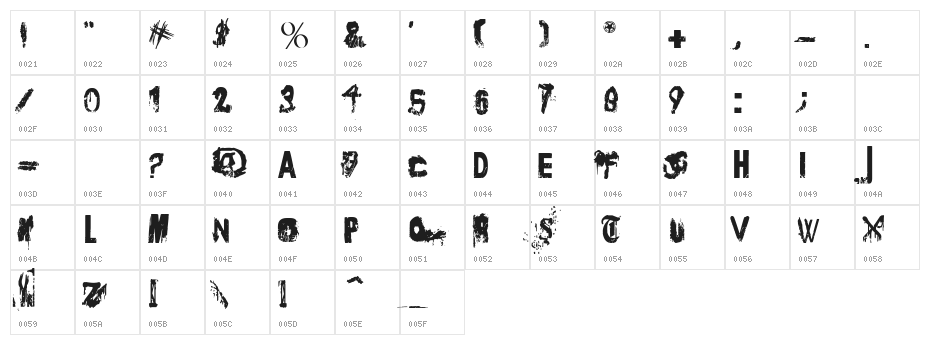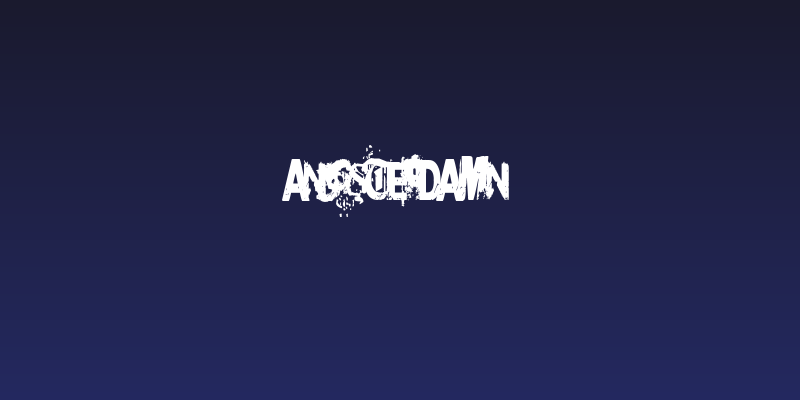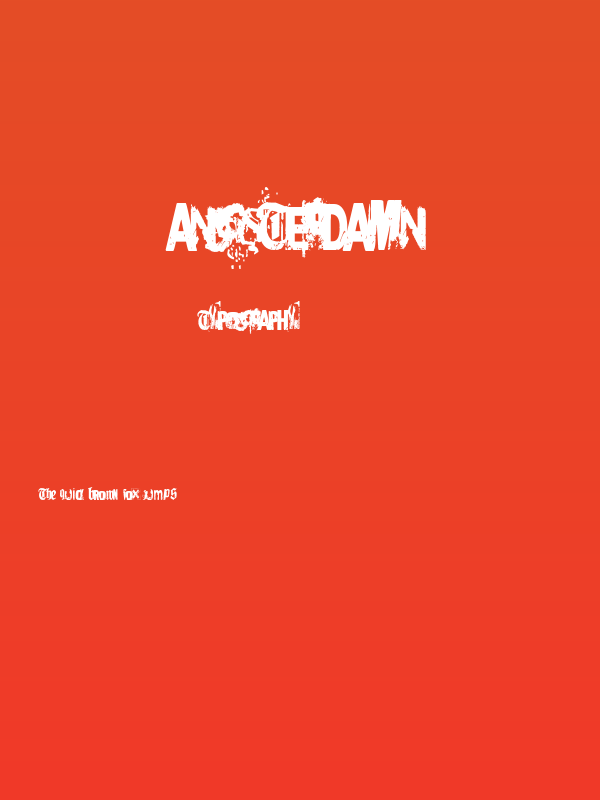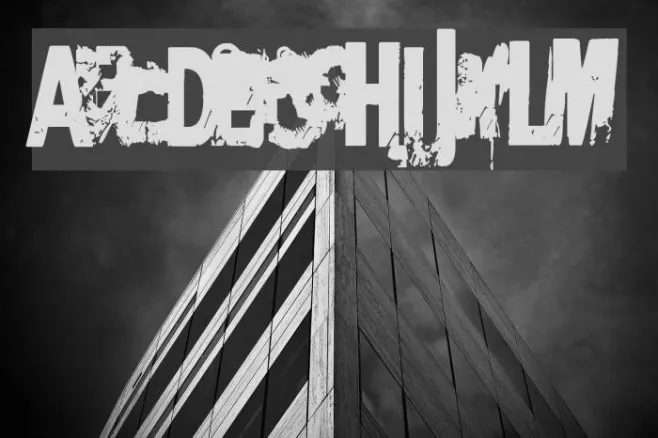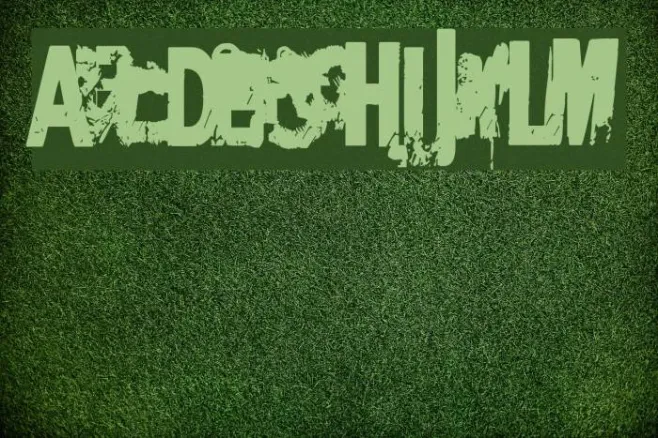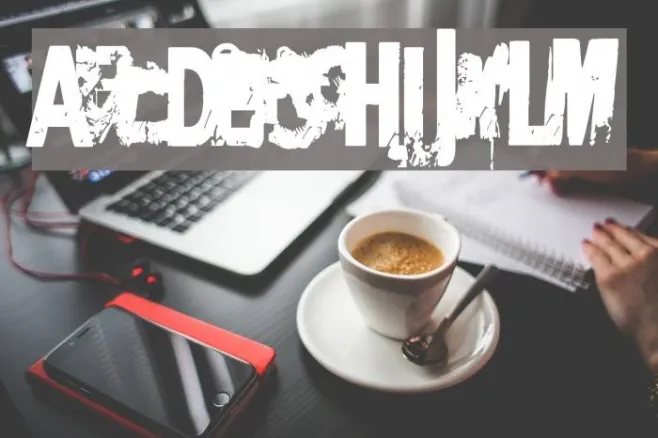
Angsterdamn Font
Angsterdamn Description
This font exhibits a bold and distressed style, characterized by its rough, grungy texture and uneven edges. The uppercase letters are particularly striking, with a heavy, block-like appearance that suggests a sense of ruggedness and rebellion. The lowercase letters maintain this distressed aesthetic, though they are slightly more compact and less imposing. Numbers and special characters follow the same design principles, ensuring consistency across the entire typeface. The overall look is chaotic yet controlled, making it ideal for projects that require a gritty, urban feel. Its unique style is reminiscent of street art or graffiti, offering a raw and edgy vibe.
ANGSTERDAMN UPPERCASE
ANGSTERDAMN LOWERCASE
ANGSTERDAMN OTHER CHARS
| Overall Style | Grunge, Urban, Edgy |
| Use Case | Logos, Posters, Headlines |
| Proposed Projects | Ideal for album covers, streetwear branding, posters, and urban-themed designs. |